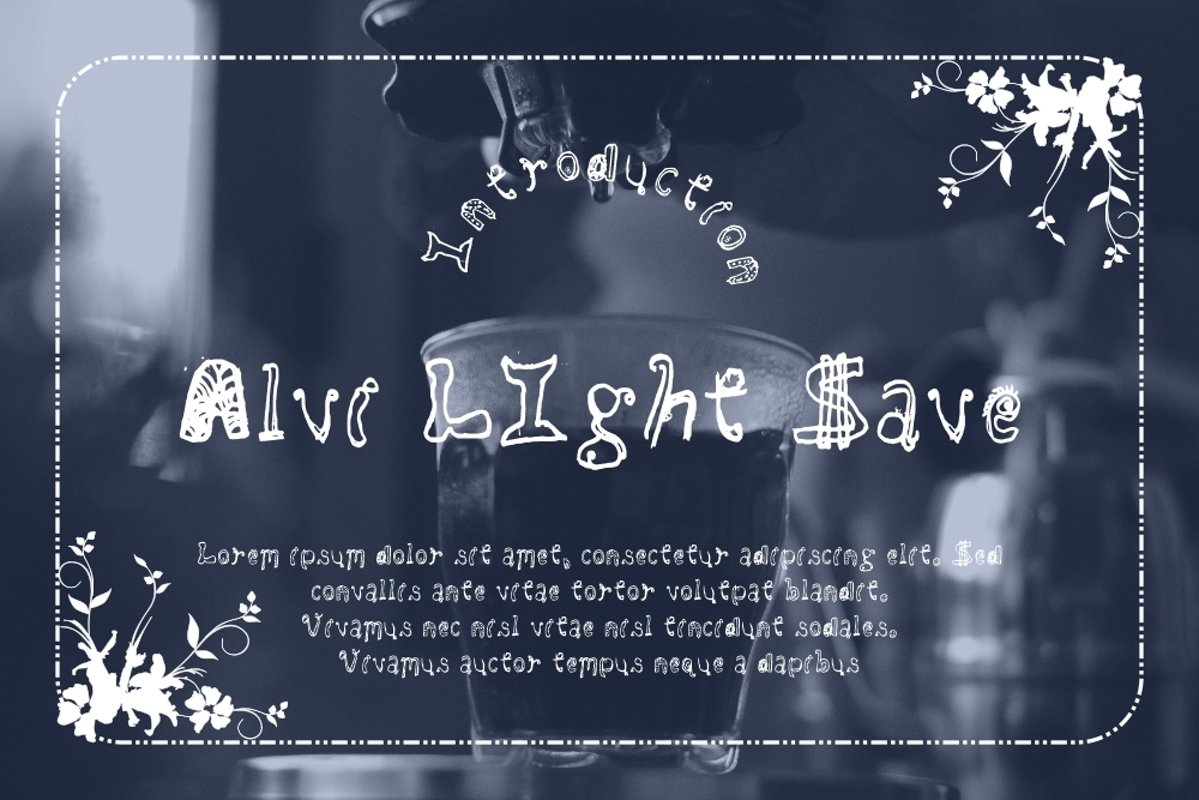
Alvi LIght Save
Alvi LIght Save Typeface is a Display type. It suitable for any vintage type needs and more Happy creating.Very suitable for you who do exploration